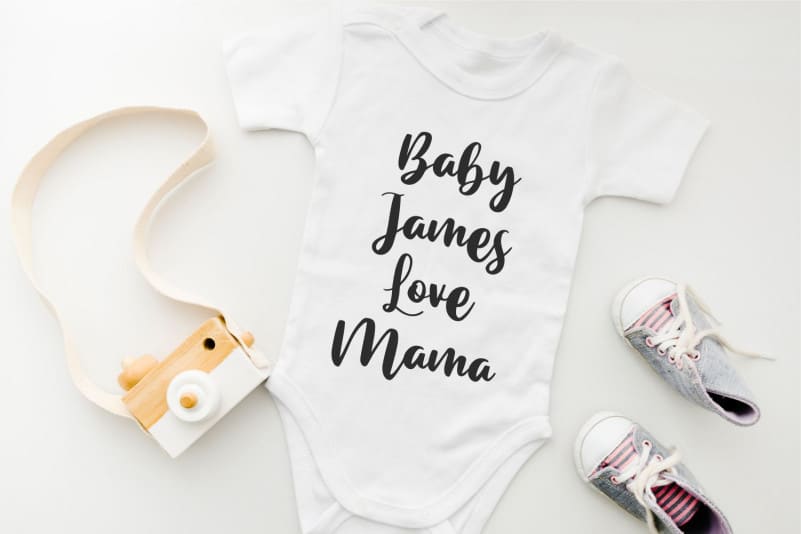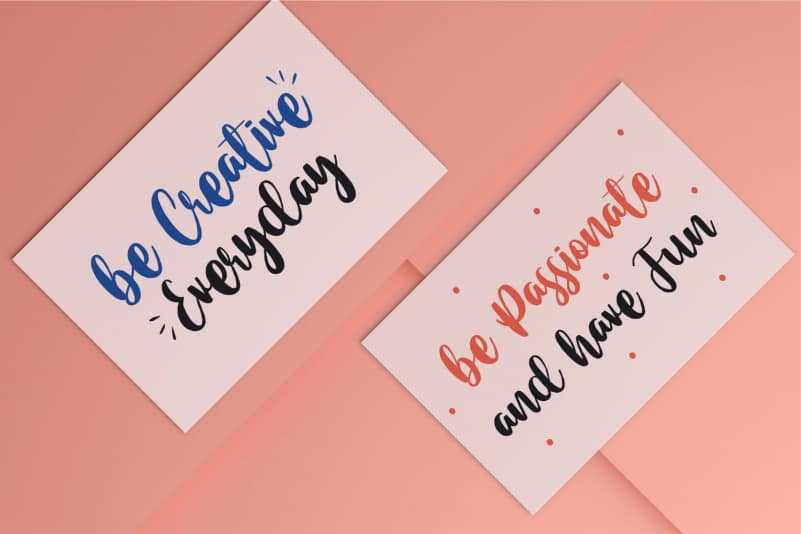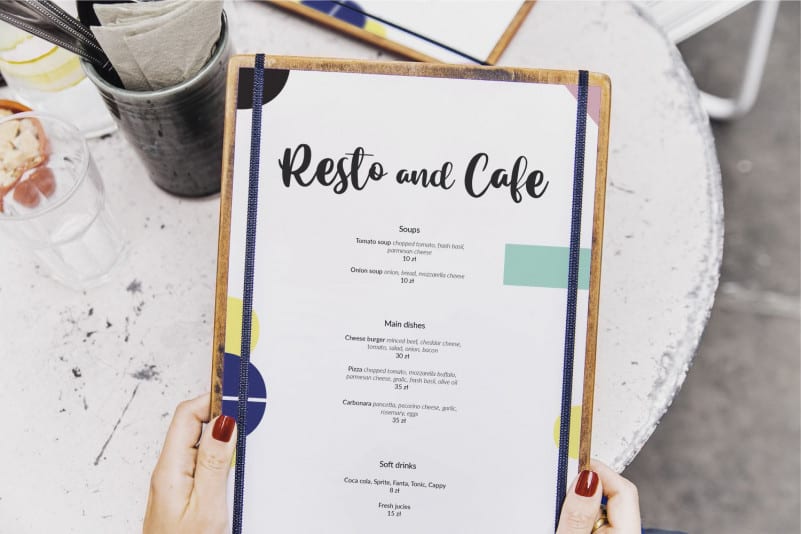
Ocean Sunshine Script Font
Ocean Sunshine Font is a Handlettered Script Font. It\’s perfect for product packaging, branding project, megazine, social media, wedding, or just used to express words above the background. Ocean Sunshine Script Font includes OTF&TTF, Ocean Sunshine also multilingual support.